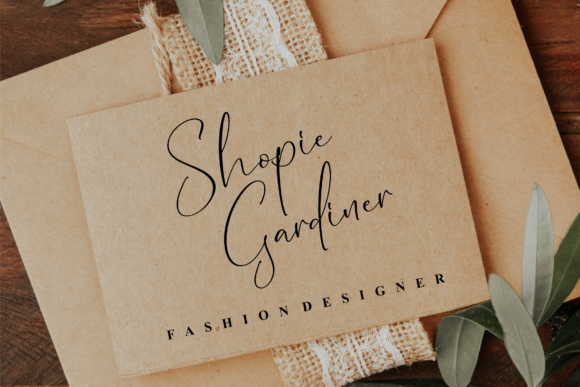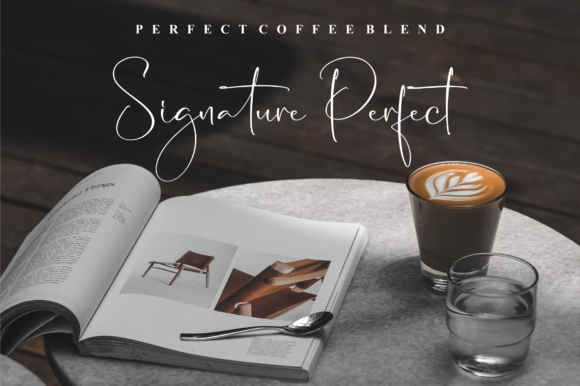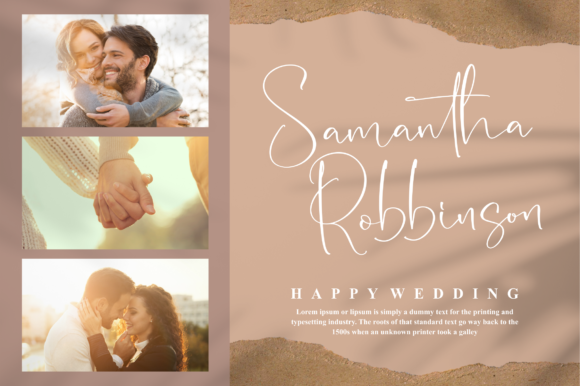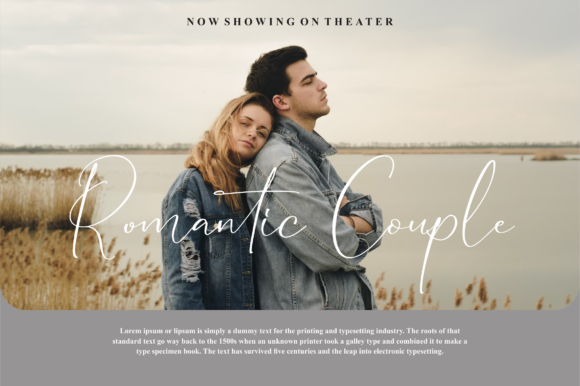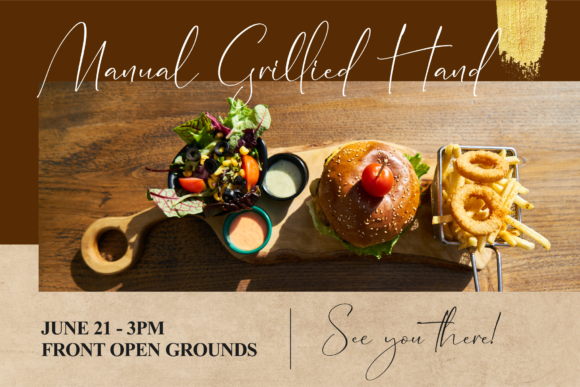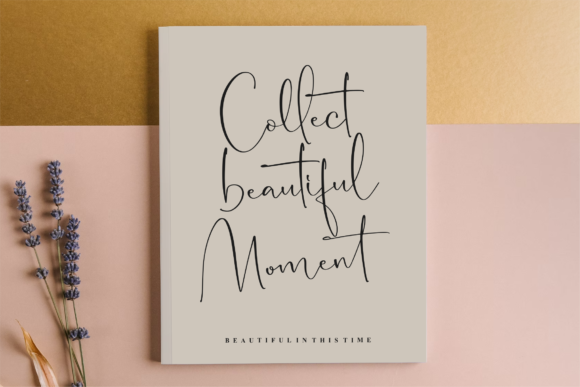
Introduction to Romantical Bohelian Font
Have you ever been working on a creative project, pouring your heart and soul into it, and suddenly, the perfect font appears, transforming the entire design? That’s exactly what happened to many designers who discovered the enchanting Romantical Bohelian Font. This beautiful script font is a game-changer, elevating any project from ordinary to extraordinary.
Whether you’re working on a logo, branding project, homeware design, or product packaging, the Romantical Bohelian Font is the perfect design resource to add a touch of elegance and sophistication. Its high-quality design and transparent background make it a versatile and convenient choice for any creative project.
Key Features of Romantical Bohelian Font
- Unique, hand-drawn design ideal for creative projects and artistic expressions.
- High-resolution font with a transparent background, perfect for use on any background or design element.
- Available in a single font style with multiple weights and sizes, offering versatility for various design applications.
- Designed to evoke a sense of romance and bohemian elegance, ideal for wedding invitations, greeting cards, and other creative projects.
Honest Review: Romantical Bohelian Font
I recently came across the Romantical Bohelian Font and was excited to try it out for a creative project. The first thing I noticed was its unique, whimsical style, which I think would be perfect for a design that needs a touch of elegance and playfulness. The font is available as a free download, making it a great resource for designers on a budget.
Here are some things that work well with the Romantical Bohelian Font:
- ✨ Unique and elegant design, perfect for creative projects
- ✨ High quality, with clear and crisp letters
- ✨ Transparent background, making it easy to work with
- ⚠️ Limited font sizes and weights, which may limit its versatility
- ⚠️ Not ideal for large blocks of text, as the font can become overwhelming
Overall, I think the Romantical Bohelian Font is a great addition to any design resource library. While it may have some limitations, its unique style and high quality make it a valuable asset for designers working on creative projects.
To get the most out of the Romantical Bohelian Font, try using it with a transparent background to create a unique and eye-catching design. You can also experiment with different font sizes and styles to add visual interest to your project.
The Romantical Bohelian Font is perfect for a variety of creative projects, including:
- Birthday cards and party decorations
- Graphic design projects and branding materials
Milieu compares to Romantical Bohelian Font in its bohemian and free-spirited vibe, but with a more playful and experimental feel. It’s a great alternative for designers who want to add a touch of fun and creativity to their design resources.